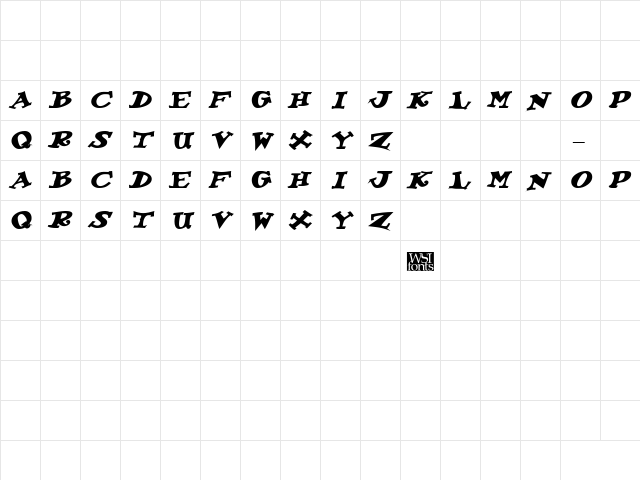
KoolKapsDisplayHvy Bold Italic Font Preview
Design Context for KoolKapsDisplayHvy Typeface
KoolKapsDisplayHvy brings ornamental detail and strong personality to headlines and identities, where visual impact matters more than quiet functionality. Its italic angle brings a sense of urgency and motion to the letterforms. The heavy weight commands attention and anchors typographic hierarchies.
Font Pairing: Pair with a clean neutral sans-serif for body copy to let KoolKapsDisplayHvy's character lead without overwhelming the composition.
Pro Tip: Use KoolKapsDisplayHvy exclusively at display sizes — it was designed to be seen, not read at length. Let a neutral companion handle body copy.